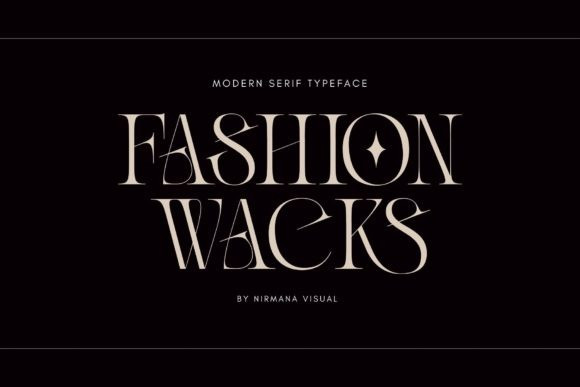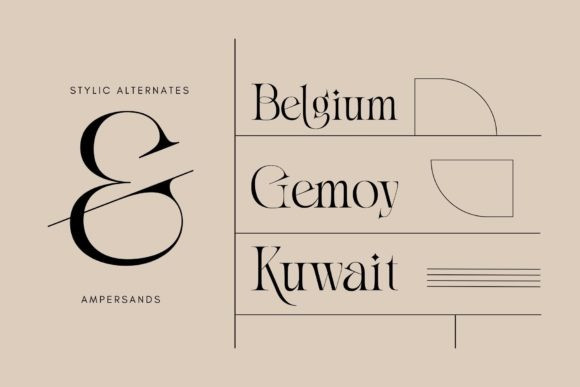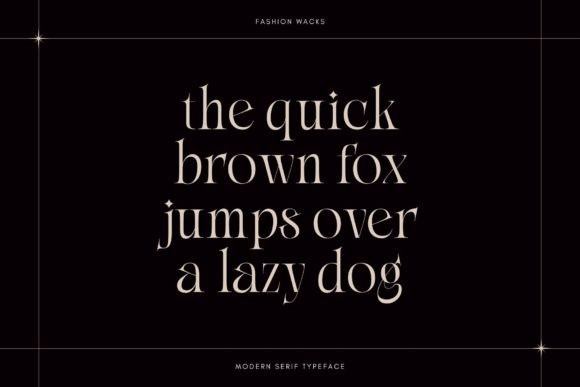
Fashion Wacks Font
Fashion Wacks is a bold and elegant serif font. It will elevate a wide range of crafting ideas, from cards, to branding, labels and much more.